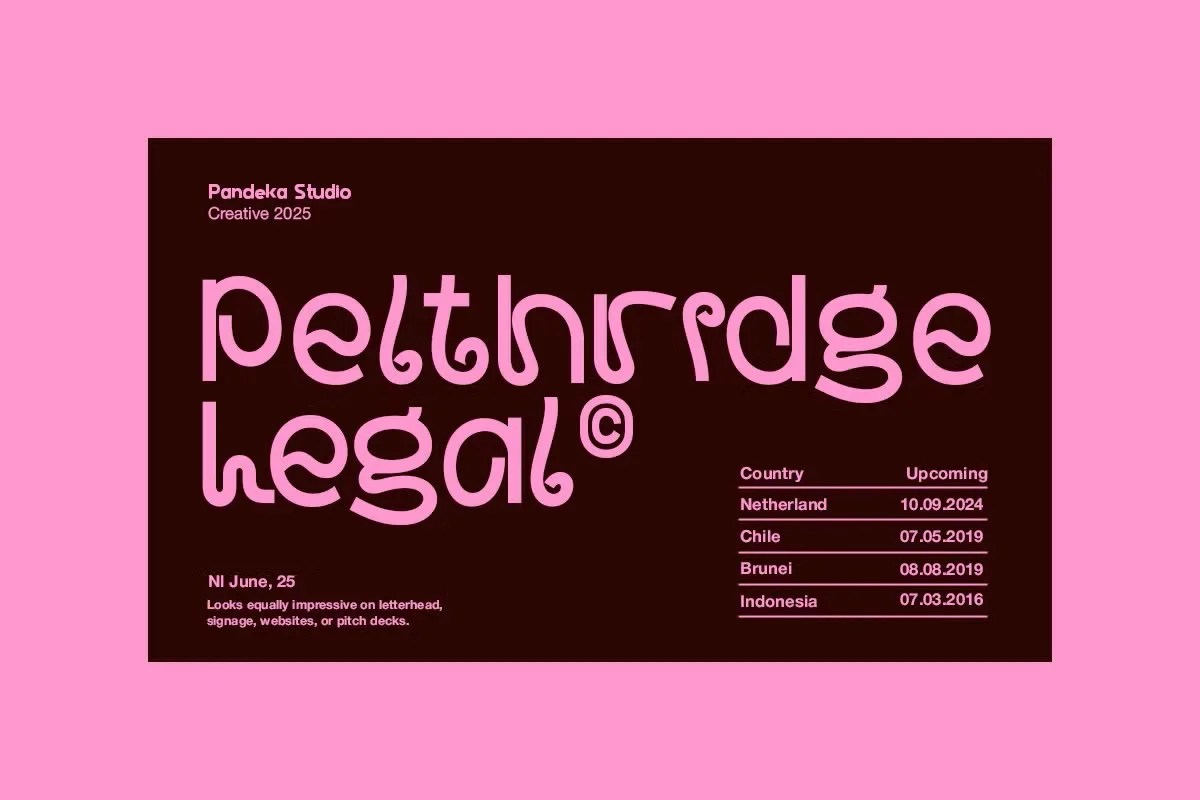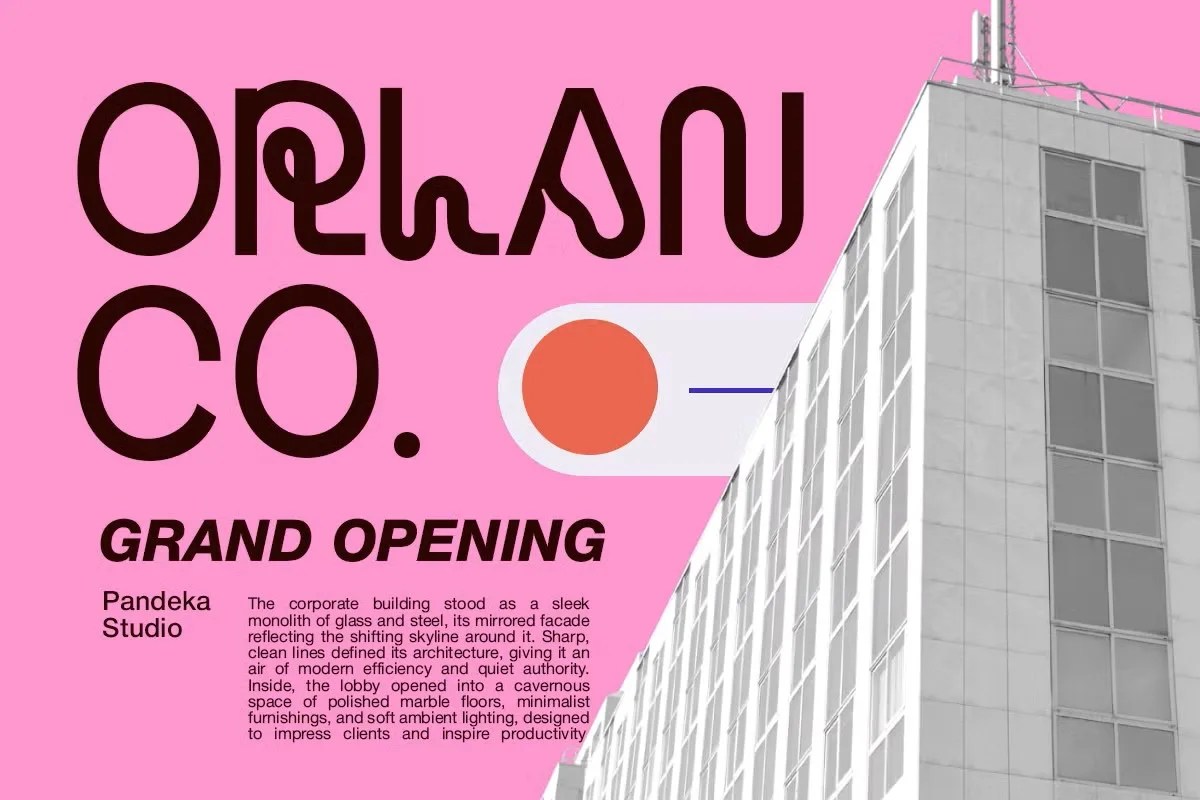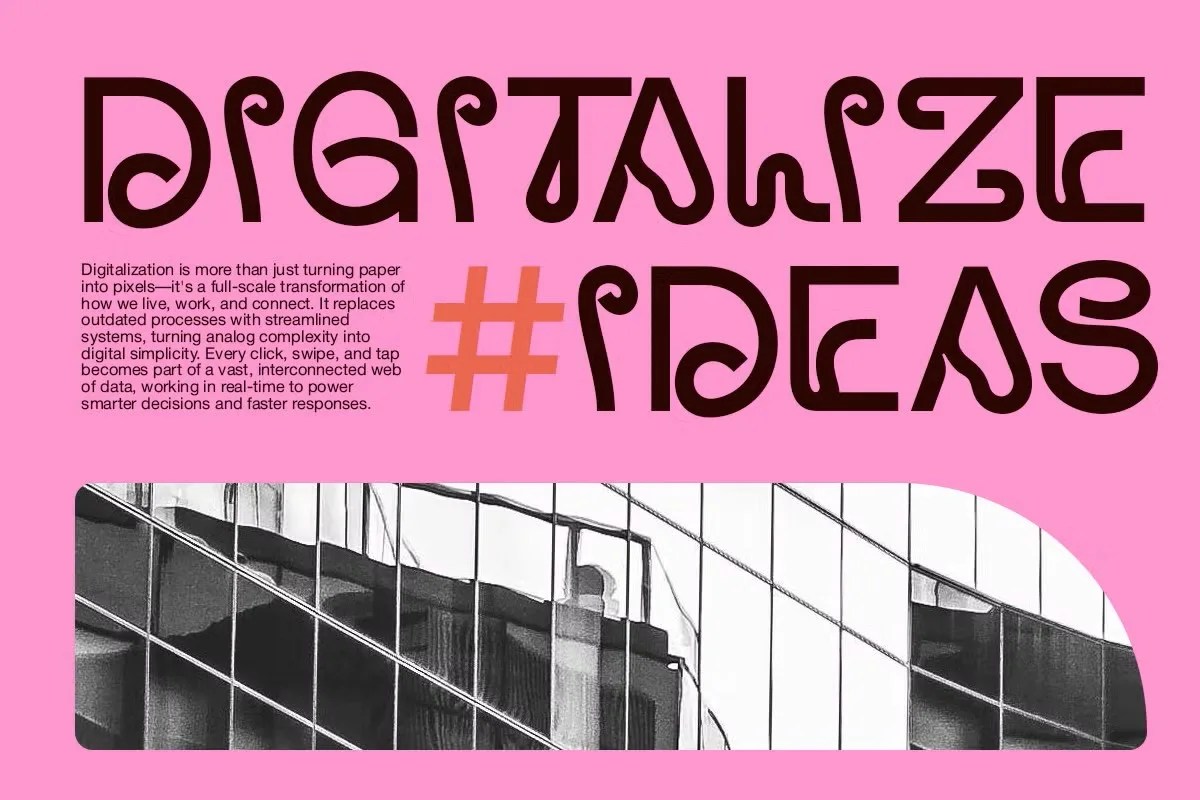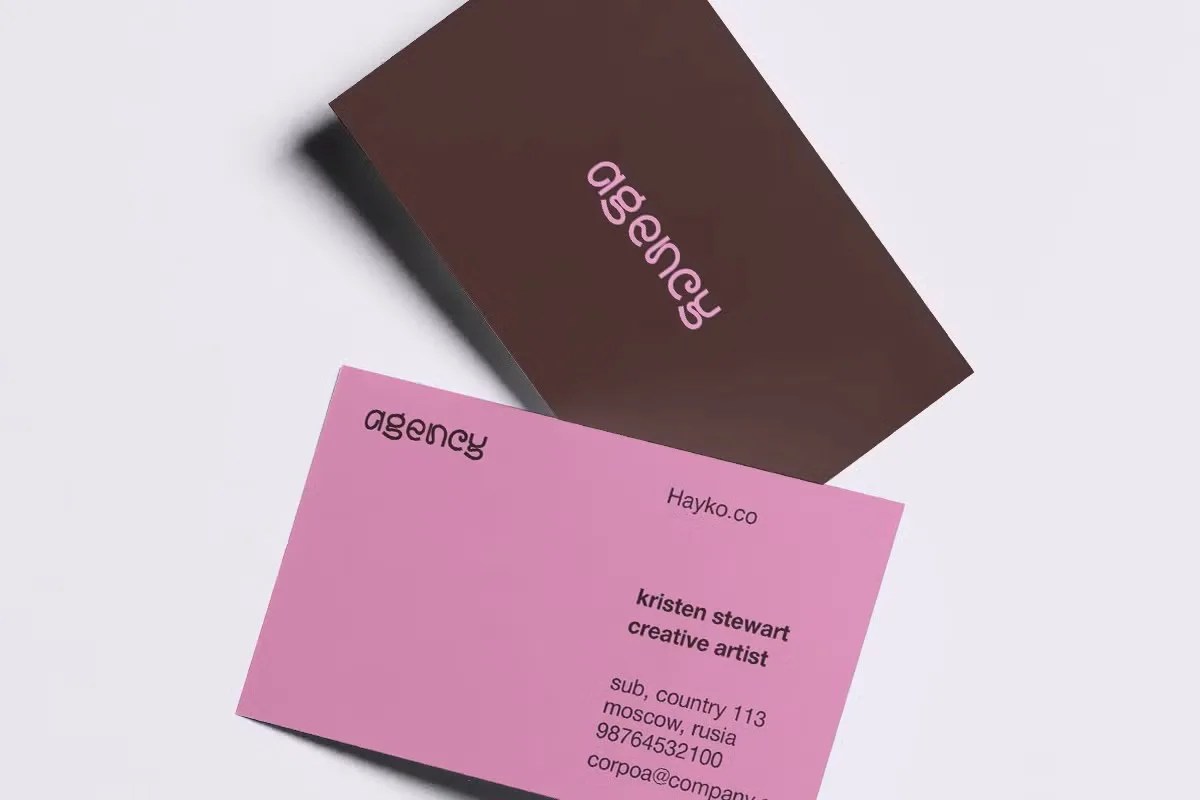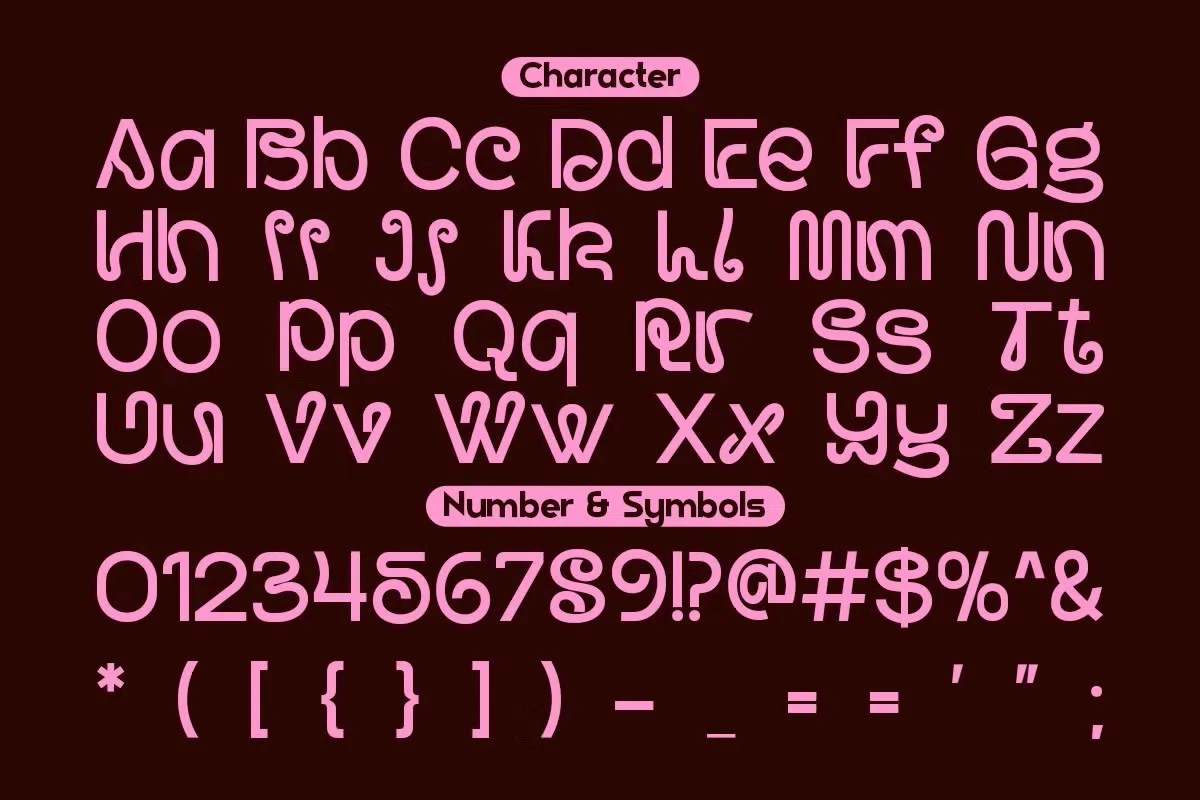
Hayko Font by Pandeka Studio is a bold and captivating display typeface crafted to make a powerful statement in your designs. With its unique letterforms and commanding presence, Hayko is the perfect choice for projects that demand attention and a touch of creative flair.
Ideal for striking headlines, memorable logos, eye-catching posters, and dynamic social media graphics, Hayko brings an expressive energy to any layout. Its distinct character ensures your message stands out, making it a fantastic asset for branding, apparel design, and event promotions on your personal projects.
• Bold and expressive display style
• Unique and impactful letterforms
• Includes uppercase, lowercase, numbers, and punctuation
• Perfect for headlines, logos, posters, and branding
• Designed for high visual impact